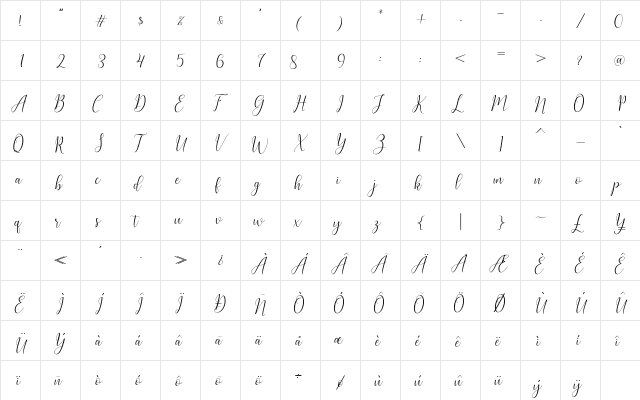
Nostalgia Script Regular
| Foundry | Fajri Adi |
| Designer | Fajri Adi |
Design Context for Nostalgia Script Typeface
Nostalgia Script flows with the natural rhythm of handwritten lettering, making it ideal for designs that call for warmth and personal expression.
Font Pairing: Combine Nostalgia Script with a simple geometric sans for maximum contrast — the tension between flowing curves and clean structure is a classic typographic pairing.
Pro Tip: Use Nostalgia Script for short runs of text — names, titles, or taglines. Extended body copy in script faces tires the eye quickly.